We all want the most beautiful inscription on our t-shirt, so many apparel designers are looking for the right fonts, so today we decided to create a large collection of t-shirt fonts. They are just enchanting.
All these t-shirt fonts has been crafted by professional designers and are in the best quality no matter it is free or premium font. Get tons of them by selecting from our comprehensive list below. Keep a good mood and enjoy. 🙂
Artzopo Font
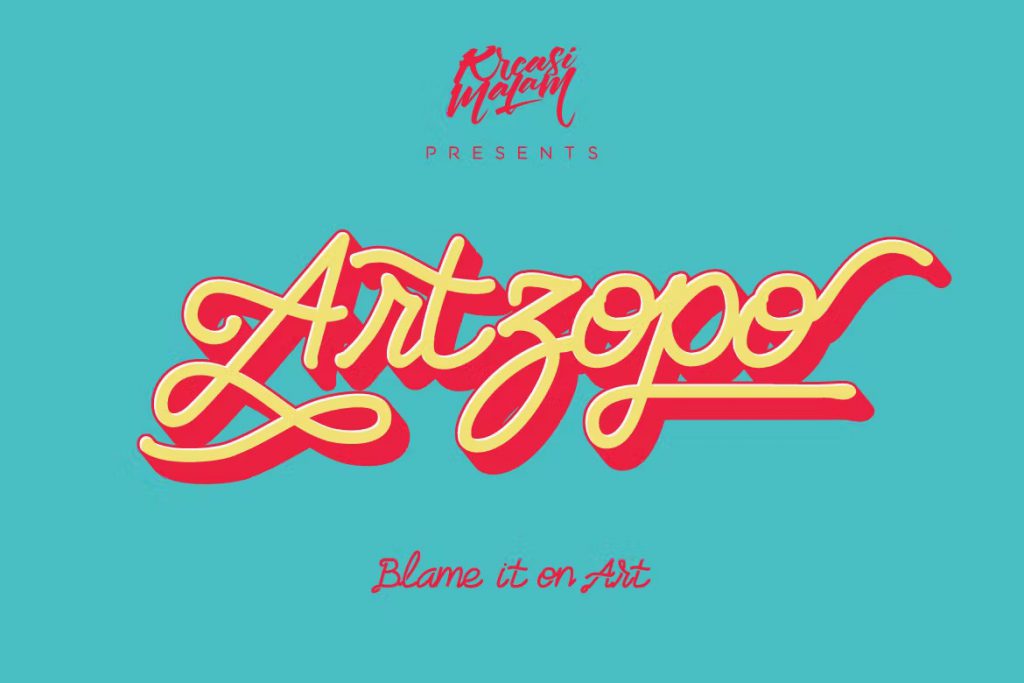
A handmade font with open type feature would be awesome for your design projects such as for logos, quotes, t-shirts, posters and etc.
Sunborn Font Family
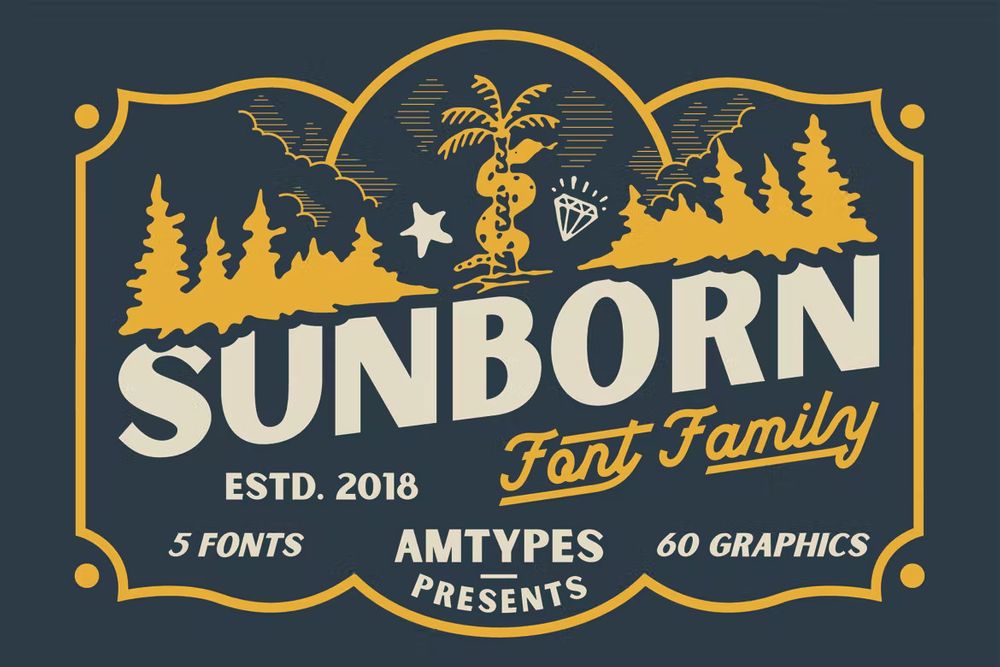
It’s a simple and clean font. combined with handmade graphics packages, this font is perfect for your project needs such as poster designs, label designs, branding, logo designs, greeting cards, merchandise, t-shirts and etc.
The Brewski – Textured Typeface
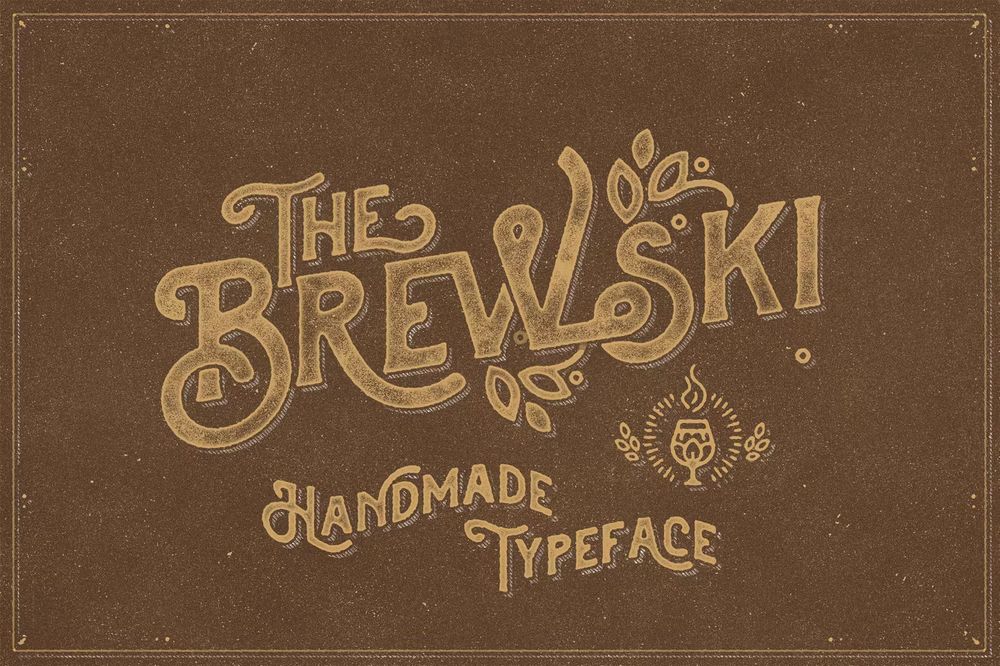
It’s a textured typeface, with touch of many beautiful alternates character and ornament makes this font look stylist. This font good for vintage designs, t-shirts, logos, labels, posters and etc.
Asthenia Font
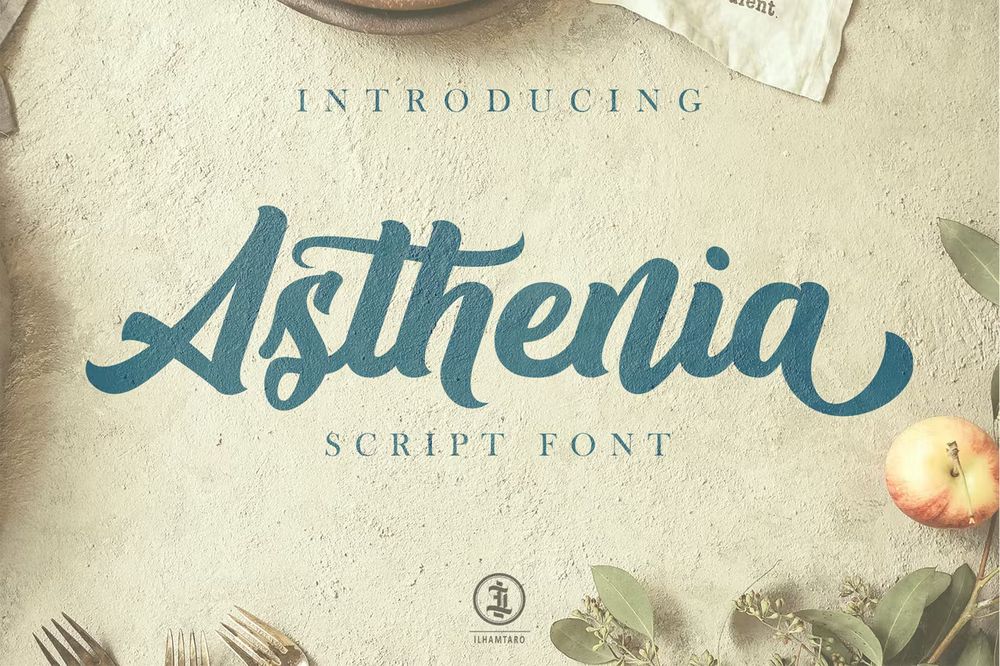
It’s a beautiful script font the best for your designs such as logotypes, posters, flyers, t-shirt designs, packaging, branding, merchandise and etc.
Tokugawa Font + 10 Editable T-shirt Designs
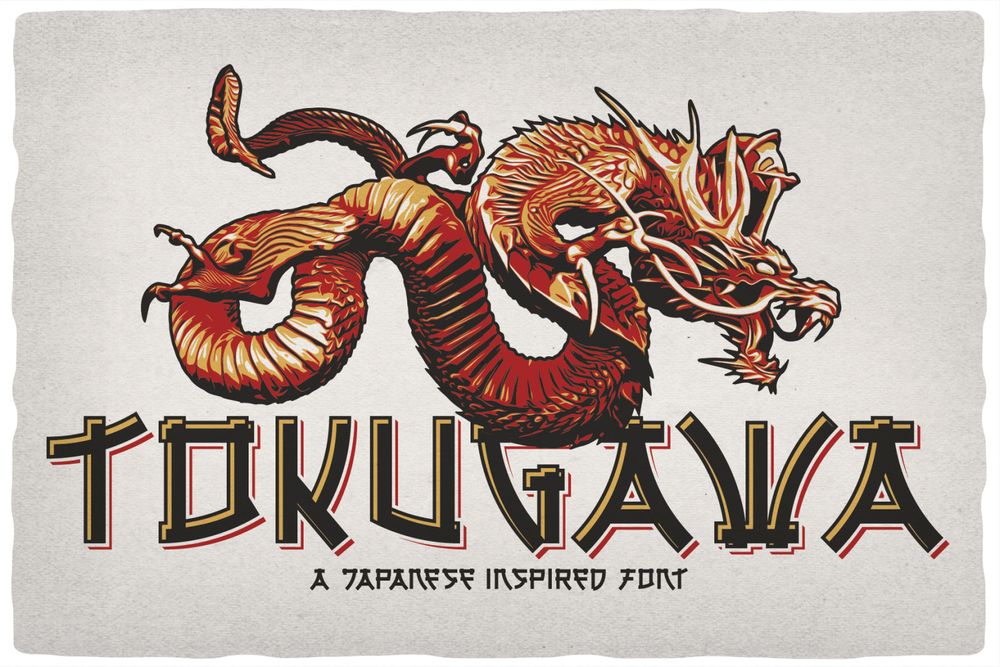
It’s a vintage Japanese style all caps font. This font will look good on any retro and Japanese styled designs like a posters, t-shirts, labels, logos and etc.
Seaman Font + 10 Editable T-shirt Designs
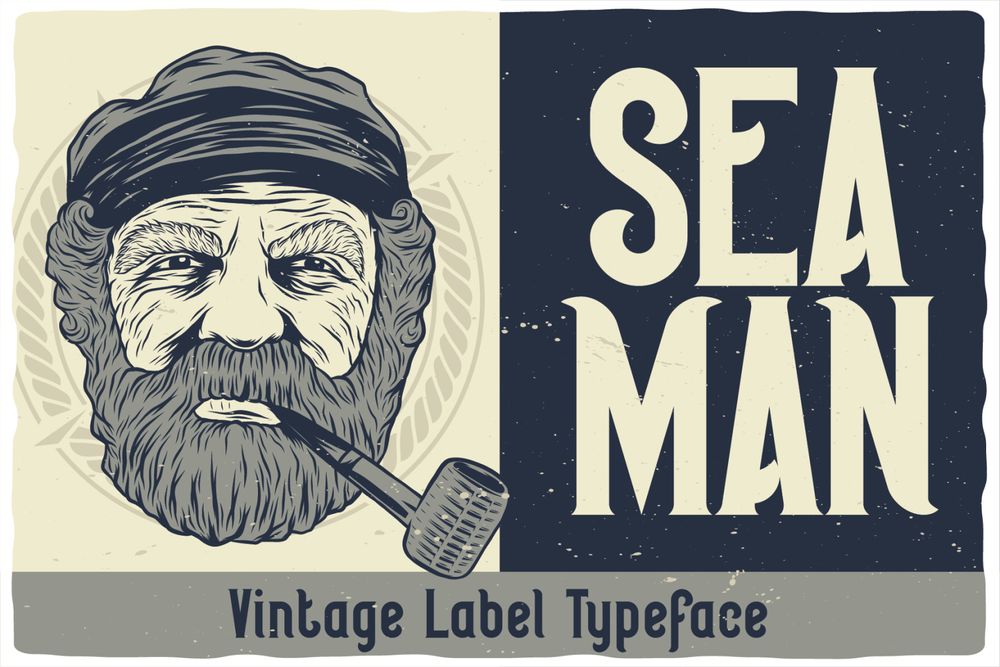
It’s a vintage label font named Seaman. This font will look good on any retro design like a posters, t-shirts, labels, logos and etc.
Ghost Script Calligraphy Font Duo
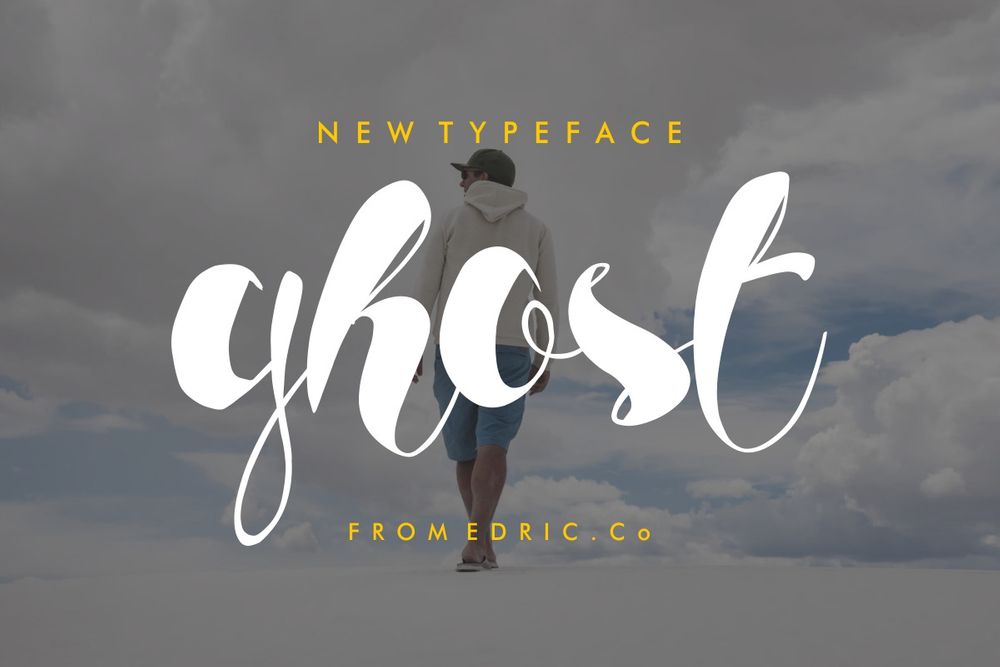
It’s bold, beauty yet clearly unique font. Will be perfect for branding, logos, photographys, business cards, signatures, flyers, posters, t-shirt designs and etc.
Falange Font
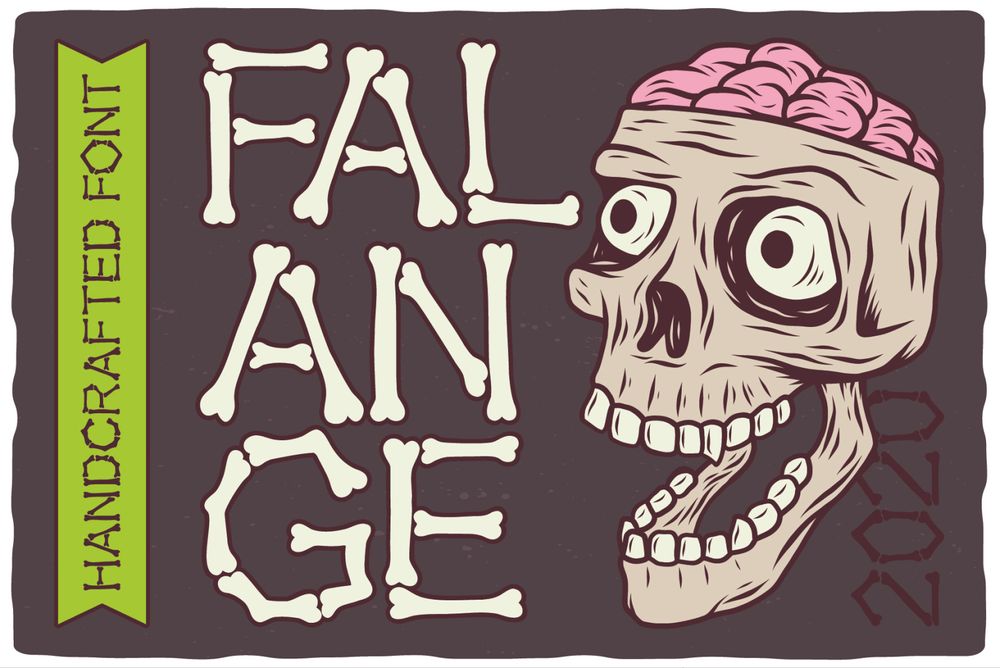
It’s a hand-drawn bone-style label font. This font will good viewed on any retro designs like posters, t-shirts, labels, logos and etc.
California Jackpot Font
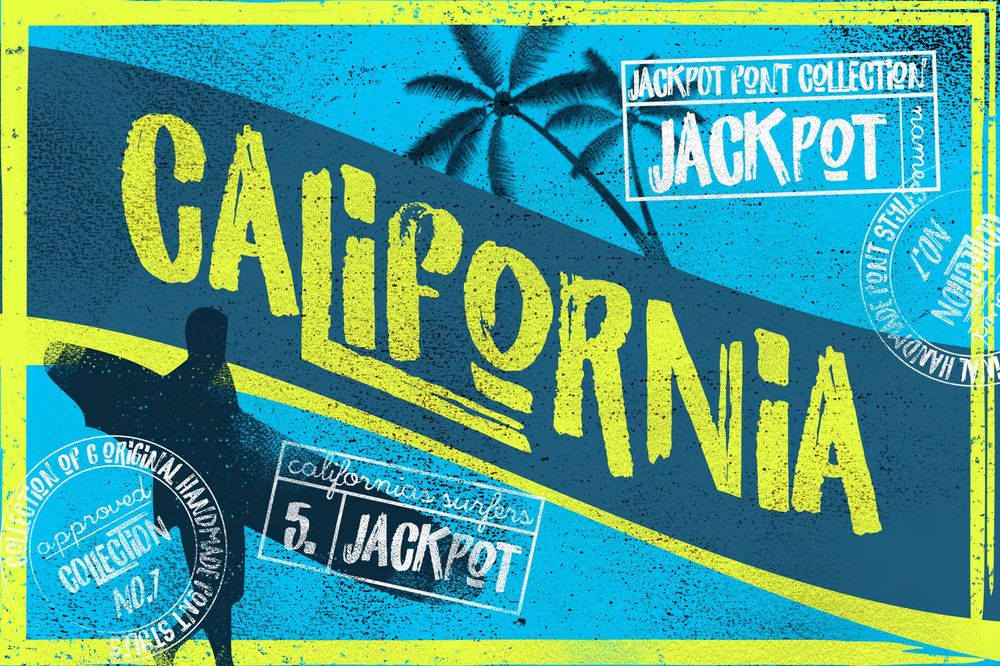
Amazing brush font for your special designs such as logos, posters, apparel like t-shirts and other clothing products.
Special Ramen – Vintage Retro Font
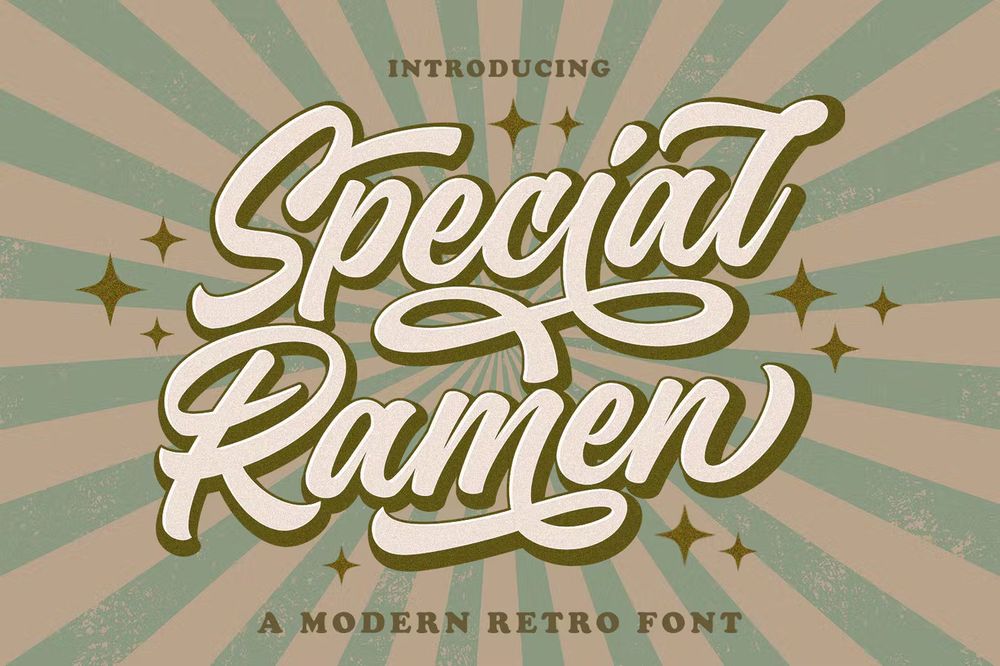
It’s an urban retro font with the style like a logotype lettering. Perfect for posters, logos, t-shirt designs, flyers and etc.
Elementica Font
It’s a bold and authentic display font suitable for any branding projects like logos, t-shirt printing, esport and etc.
The Paiton – Modern Script Font
It’s handmade modern script font perfect for branding, logos, t-shirts (apparel), headlines, packaging, greeting cards, wedding invitations and etc.
Sunkids Font
It’s a bold connected script font. Ideal for logos, printed quotes, invitations, cards, t-shirt designs and etc.
Free Magnison – Retro Script Font
It’s a script font inspired by a combination of retro and handlettering styles. Ideal for logos, handwritten quotes, product packaging, headers, posters, merchandise, social media, t-shirt designs and etc.
Free Oraqle Script Font
It’s a free brush lettering font ideal for design projects such as logos, printed quotes, badges, insignias, packaging, headlines, posters, t-shirts/apparels and etc.
Northden Font
It’s Industrial typeface font with a masculine style that is suitable for your design needs such as logos, product labels, posters or t-shirt designs.
Free Camar Vintage Font
It’s a free art deco-inspired vintage font so good going for logos, t-shirt designs, posters and other vintage crafts.
The Thesla Ohago Font
It’s a premium stylish font so good for posters, social media posts, branding, personal projects, t-shirt designs and etc.
Goshbe Brush Font
Made carefully to create the perfect texture and suitable for each of your projects such as logotypes, branding design, digital lettering arts, t-shirt/apparel and etc.
Wubby Kitten Calligraphy Font
It’s an exclusive calligraphy script typeface with brush style. Will be stunning for any projects include branding, logos, t0shirt designs, stationery, business cards, signages, flyers, brochures and etc.
Beebzz Font Family
It’s an original font family designed for headlines, titles and subtitles. Ideal for display, text, print, branding, signages, t-shirt designs and etc.
Brancifolia Font
It’s a bold script font, with a unique feature at the end of the stroke. Perfect for headlines, logos, packaging designs, both on food and clothes.
Bigbone Font
A fun and imperfect modern brushed script font with a tough of uniqueness driven. Fits perfectly for your wedding invitations, street ads, Instagram posts, t-shirt designs, branding and etc.
Breaks Typeface